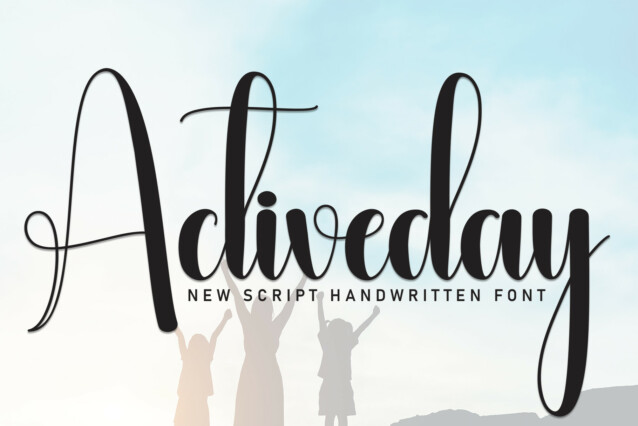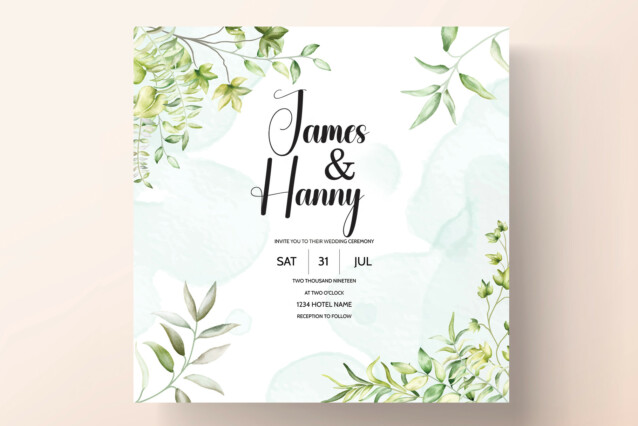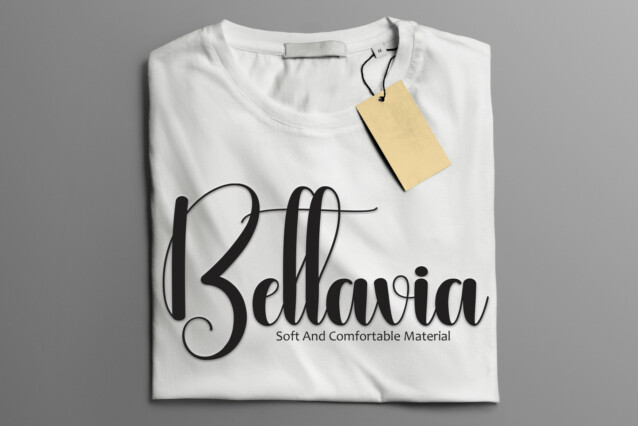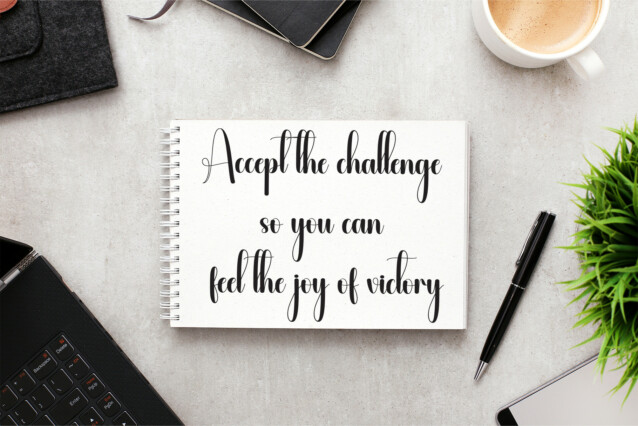
Activeday Script Font
Activeday Script Font is a sweet and friendly handwritten display font. Cute and fun, this font is ideal for writing wedding invitations, cards, or any other design that might need a playful touch!